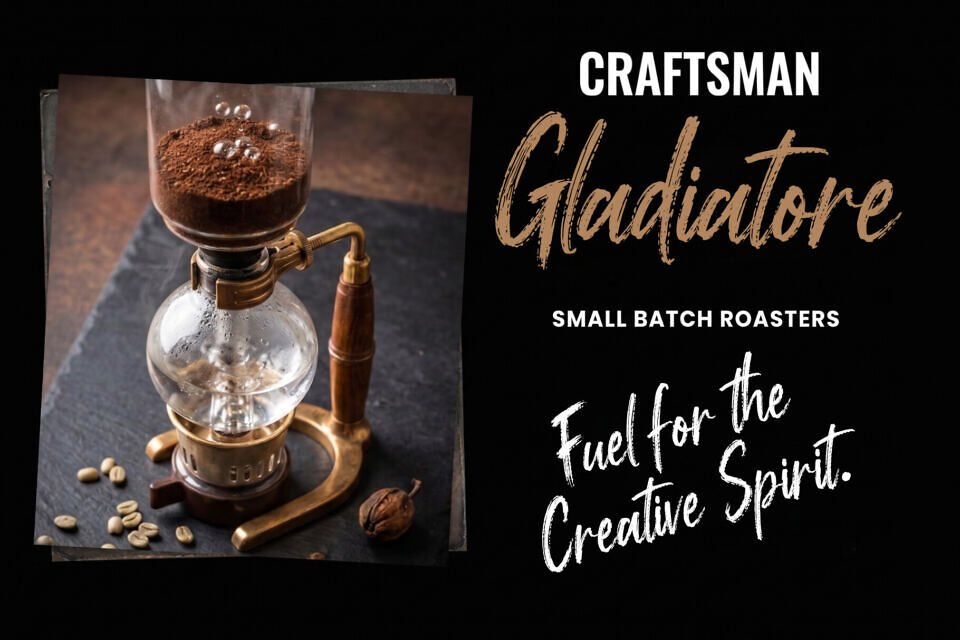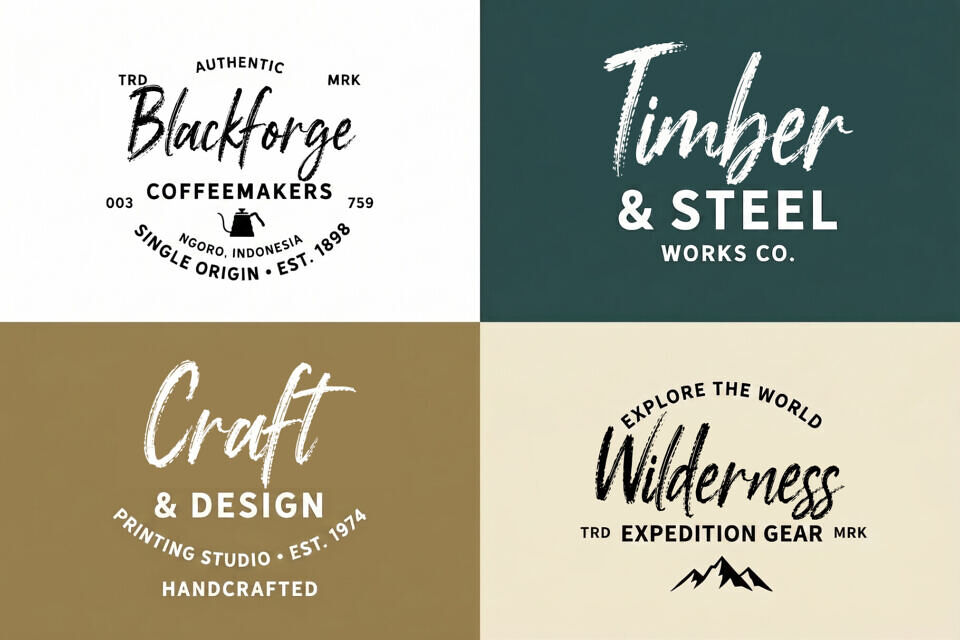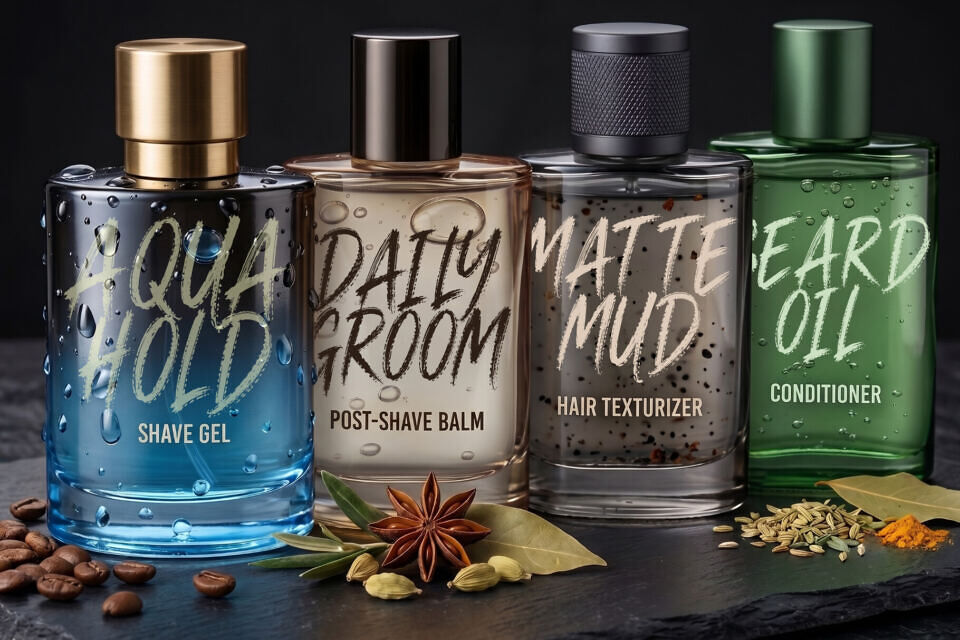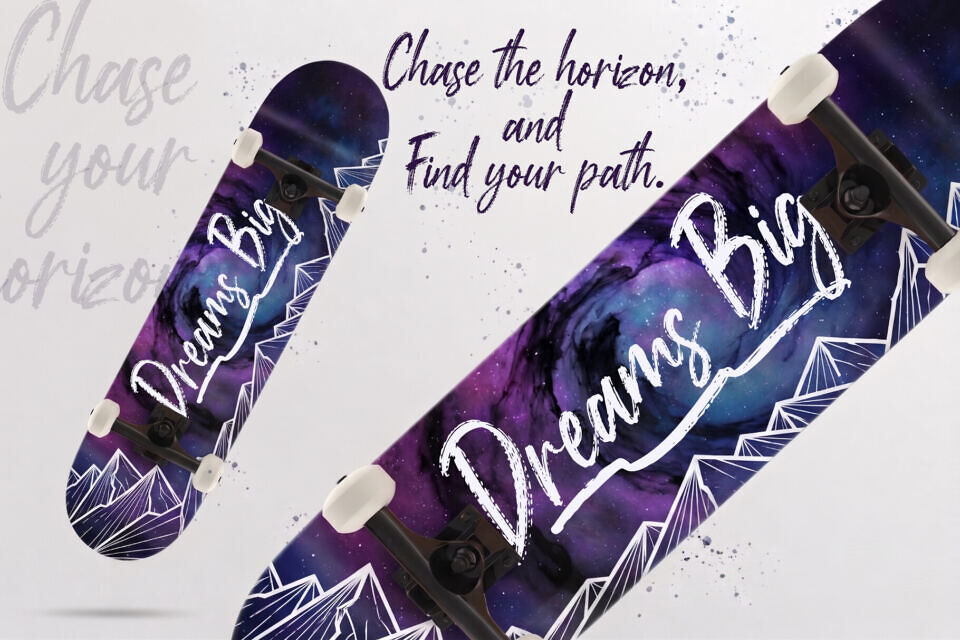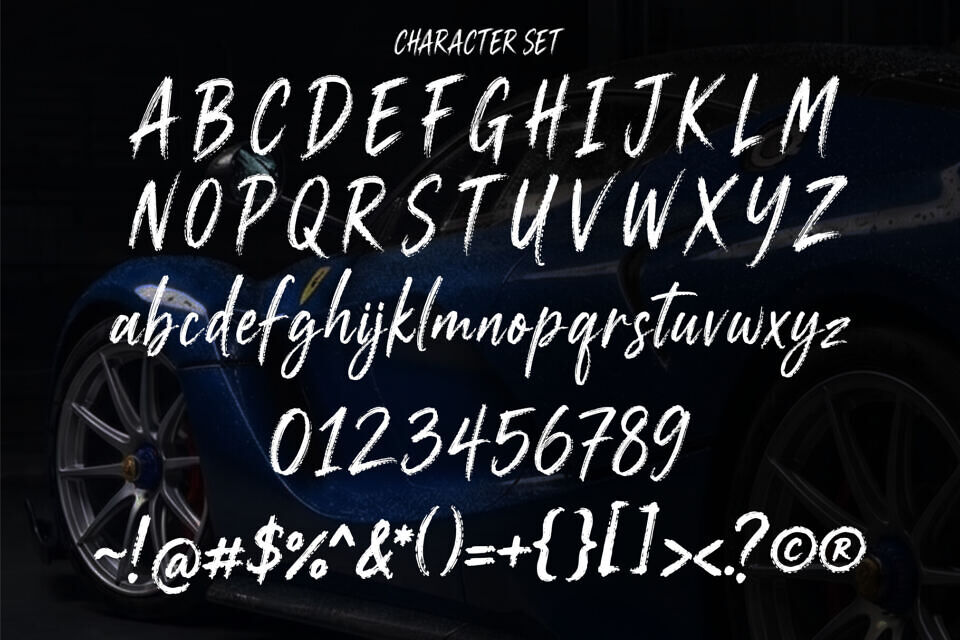
Medasron Font
Medasron is a bold and expressive authentic brush font designed to capture the raw energy of hand-painted strokes. With its rough edges, textured details, and natural flow, this font delivers a strong and dynamic visual impact while maintaining a modern and striking appearance.
Carefully crafted to reflect real brush movement, Medasron brings a sense of spontaneity and character to every letter. The dry brush texture and organic imperfections create a realistic handwritten feel, making it ideal for projects that require a powerful and artistic touch.